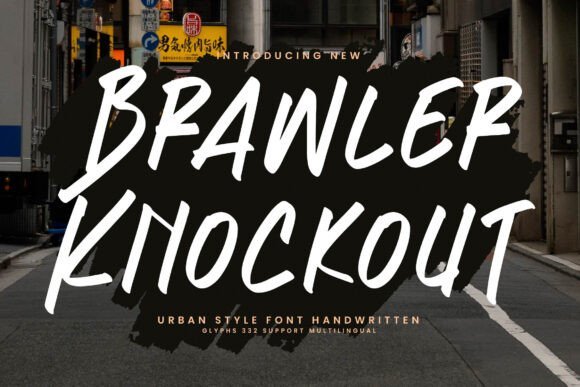
Get Ready to Unleash Your Inner Rebel with Brawler Knockout Font
You’ve spent hours brainstorming ideas, pouring over sketches, and tweaking every detail, but it all comes down to this – finding the perfect font to give your design the edge it needs. For creatives who crave bold statements and unapologetic attitude, the search is over. Introducing the Brawler Knockout Font, a raw, urban-style handwritten font that’s about to take your designs to the next level.
This fearless font is designed for the bold and the fearless, featuring 332 glyphs, ligatures, and multilingual support. Whether you’re creating streetwear branding, sports posters, or graffiti-inspired designs, the Brawler Knockout Font delivers knockout visuals with every word. With its aggressive brush strokes and dynamic energy, this font is a game-changer for designers who want to make a statement and stand out from the crowd.
Brawler Knockout Font Key Features
- Font Family: Brawler Knockout Font is a unique, high-energy font designed for sports and action-related applications.
- Unique Characteristics: Brawler Knockout Font features bold, dynamic letterforms with a distressed texture, adding a touch of ruggedness and energy to any design.
Brawler Knockout Font Review
Overall, I have mixed feelings about the Brawler Knockout Font. While it has some great qualities, it also has some notable limitations. Let’s start with what works well:
- ✨ The font has a bold and edgy feel that’s perfect for action-packed designs, sports, or even video games.
- ✨ The font is highly customizable, with a wide range of font sizes, colors, and effects available.
- ✨ The font is highly legible, even at small sizes, making it a great choice for titles, headings, and body text.
- ⚠️ The font can feel a bit overused and clichéd, particularly in designs that are trying to convey a sense of aggression or toughness.
- ⚠️ The font may not be the best choice for designs that require a more subtle or elegant feel.
Overall, I think the Brawler Knockout Font is a solid choice for designers who need a bold and edgy font for their designs. However, it’s not the best fit for every project, and designers should be aware of its limitations before using it.
Tips for Getting the Most Out of Brawler Knockout Font
Use Brawler Knockout Font for bold, eye-catching headlines and titles.
Combine with other fonts to create a unique and interesting typography.
Experiment with different font sizes and styles to achieve the desired effect.
Brawler Knockout Font is perfect for:
Movie and video game titles
Comic book and graphic novel covers
Advertising and marketing materials
Video and animation titles